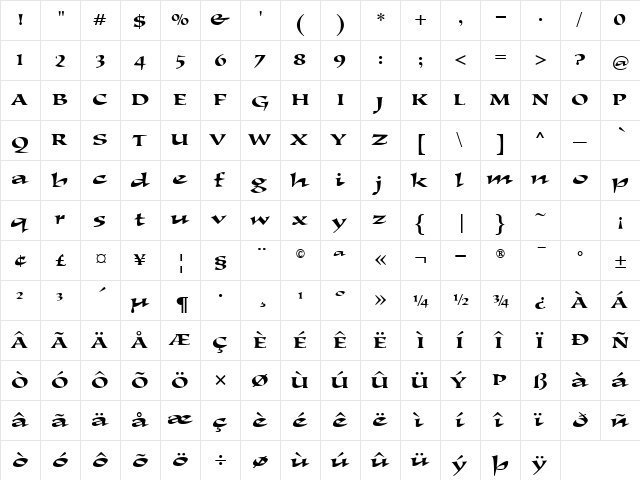
CollierScript Regular
Design Context for CollierScript Typeface
CollierScript flows with the natural rhythm of handwritten lettering, making it ideal for designs that call for warmth and personal expression.
Font Pairing: Combine CollierScript with a simple geometric sans for maximum contrast — the tension between flowing curves and clean structure is a classic typographic pairing.
Pro Tip: Use CollierScript for short runs of text — names, titles, or taglines. Extended body copy in script faces tires the eye quickly.